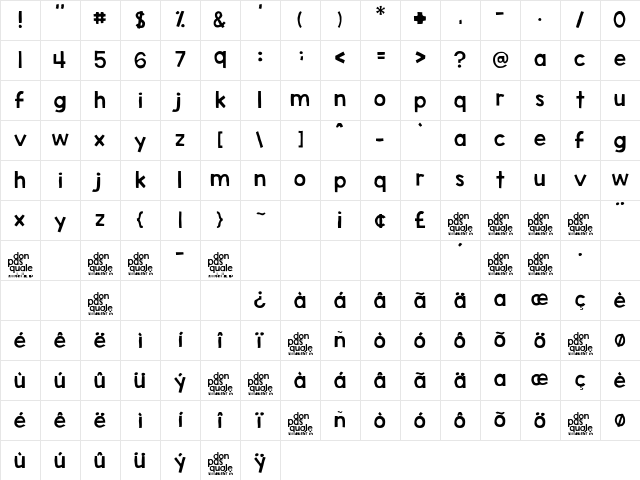
Complete Don Pasquale Regular glyph index. Displaying only characters natively supported by Don Pasquale Regular font.
Don Pasquale is a composed and adaptable typeface that performs quietly and consistently across a wide range of design contexts.